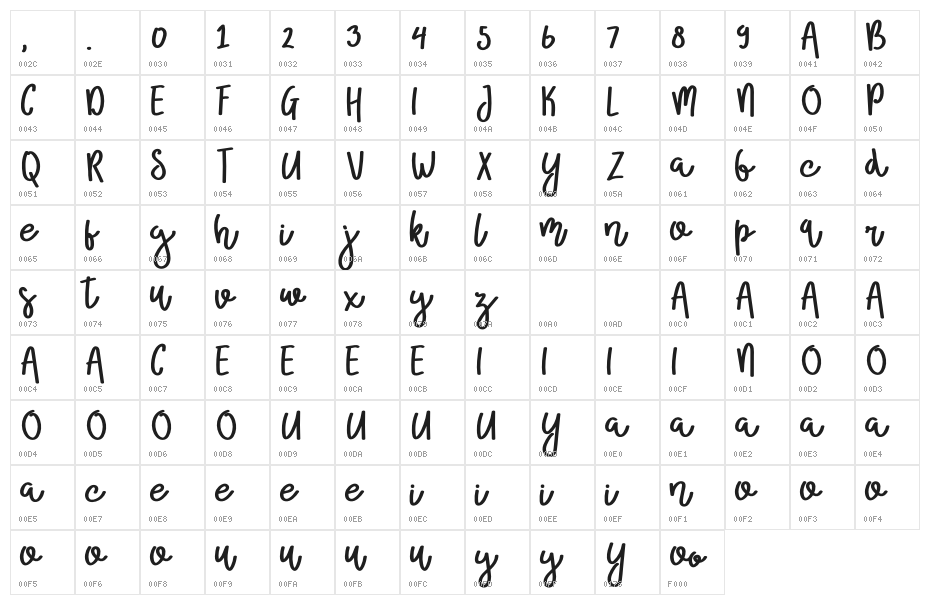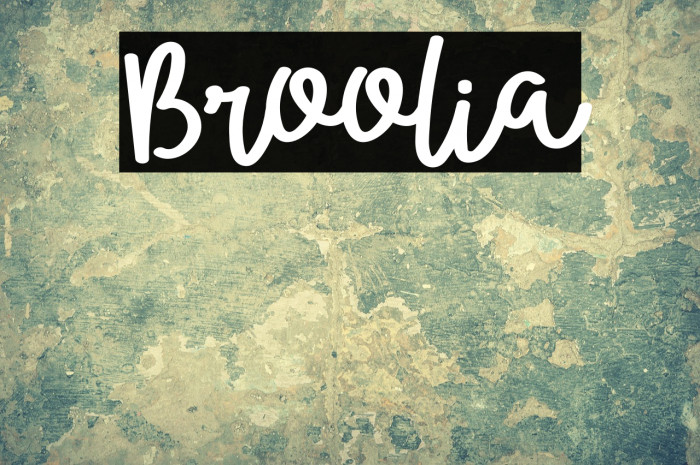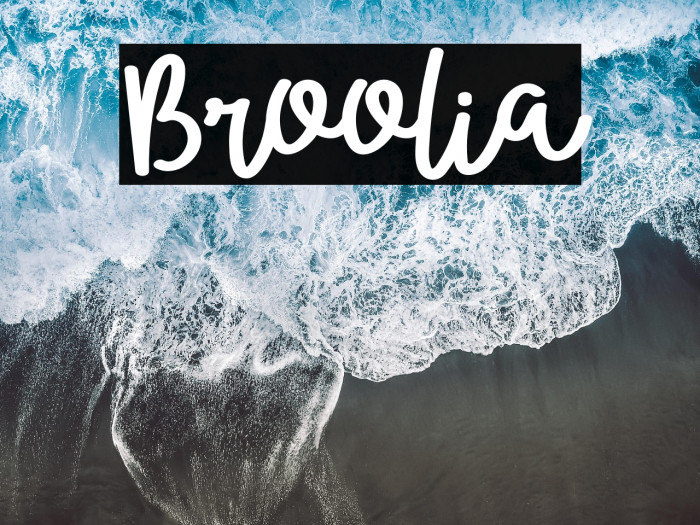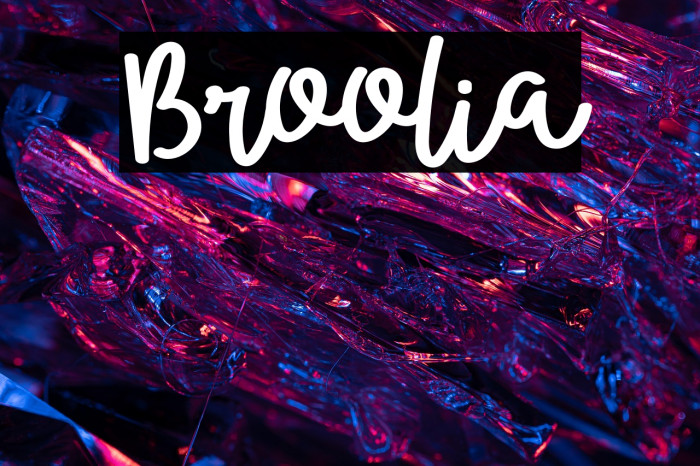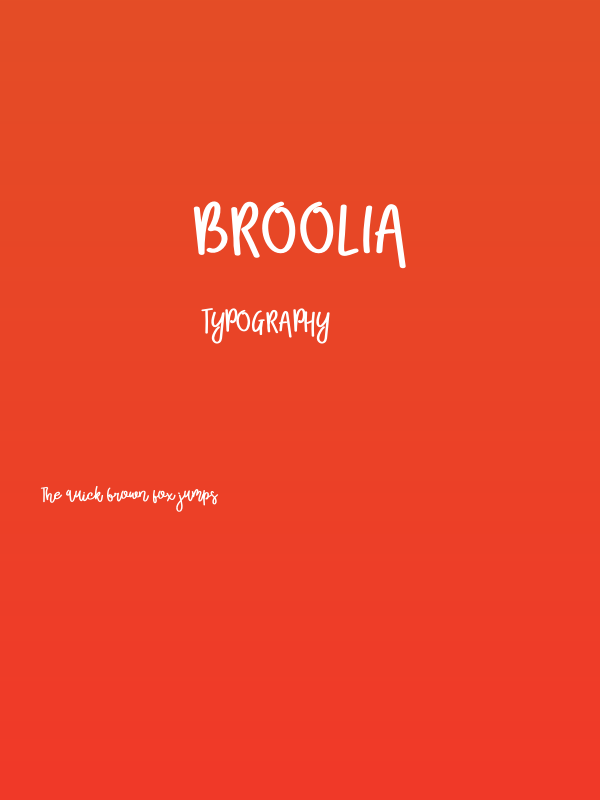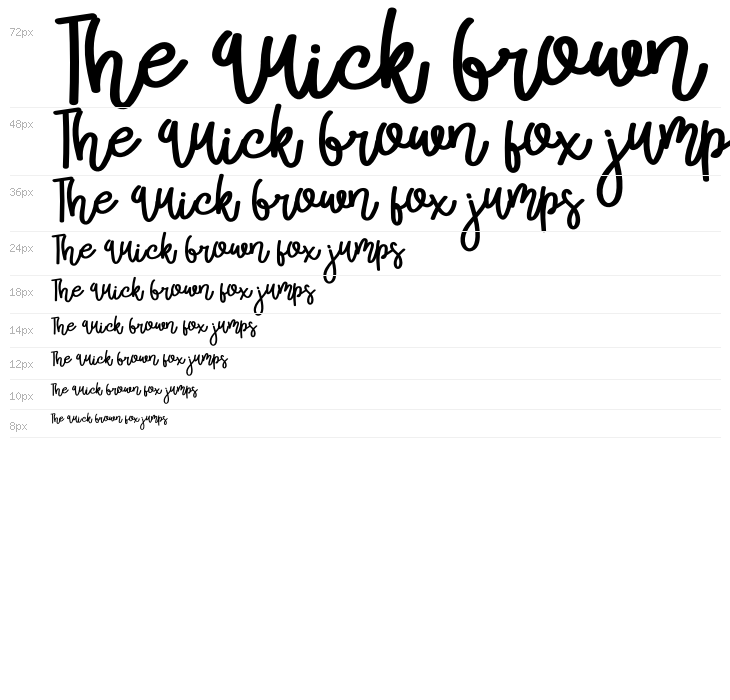
Broolia Font
Broolia Description
This font features a playful and casual handwritten style, characterized by its flowing and connected letterforms. The uppercase letters are bold and rounded, giving a sense of friendliness and approachability. The lowercase letters exhibit a smooth, cursive-like quality, with some letters extending below the baseline, adding to its dynamic appearance. The numerals are consistent with the overall style, maintaining the same playful and informal look. The font lacks traditional serifs, emphasizing its modern and relaxed aesthetic. It is well-suited for projects that require a personal touch or a creative flair.
| Proposed Projects | Ideal for greeting cards, invitations, personal branding, and creative social media graphics. |